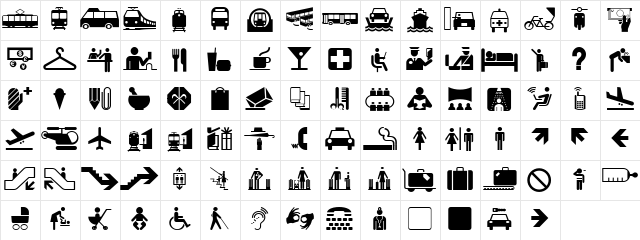
Glyphyx One NF Regular
Design Context for Glyphyx One NF Typeface
Glyphyx One NF takes a measured approach to typography — its balanced proportions and neutral character make it a reliable workhorse for both digital and print work.